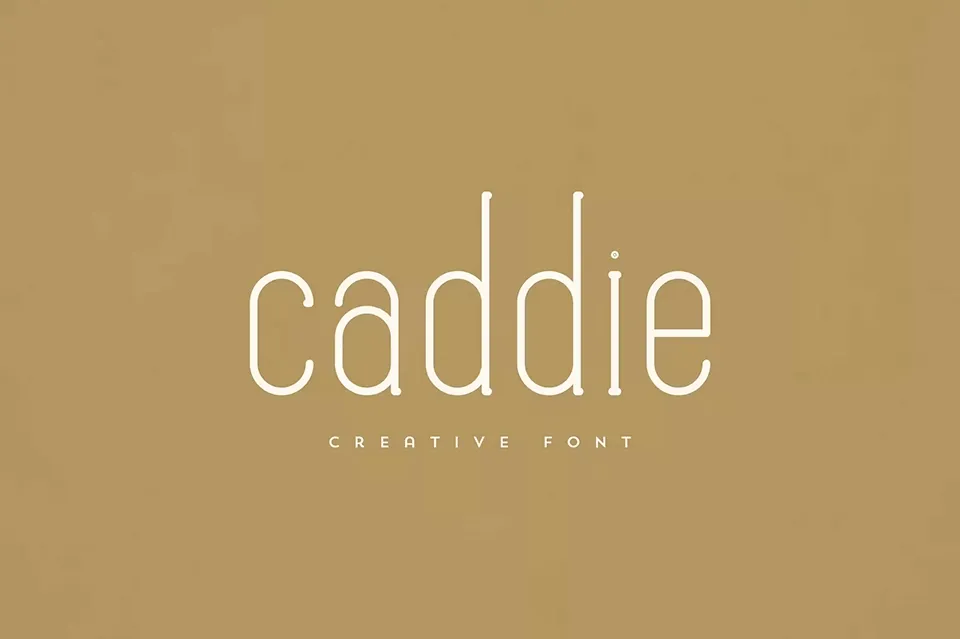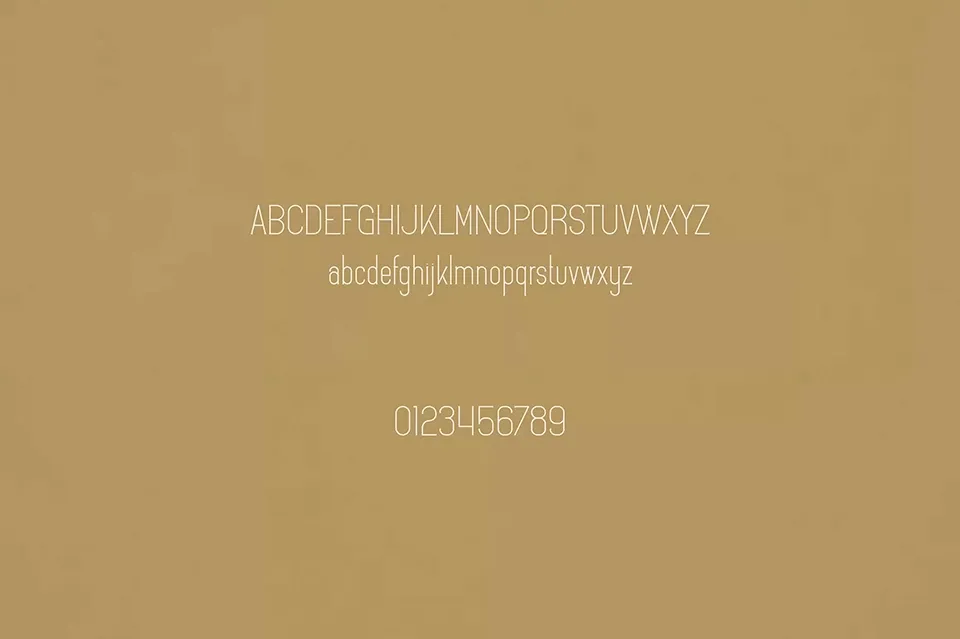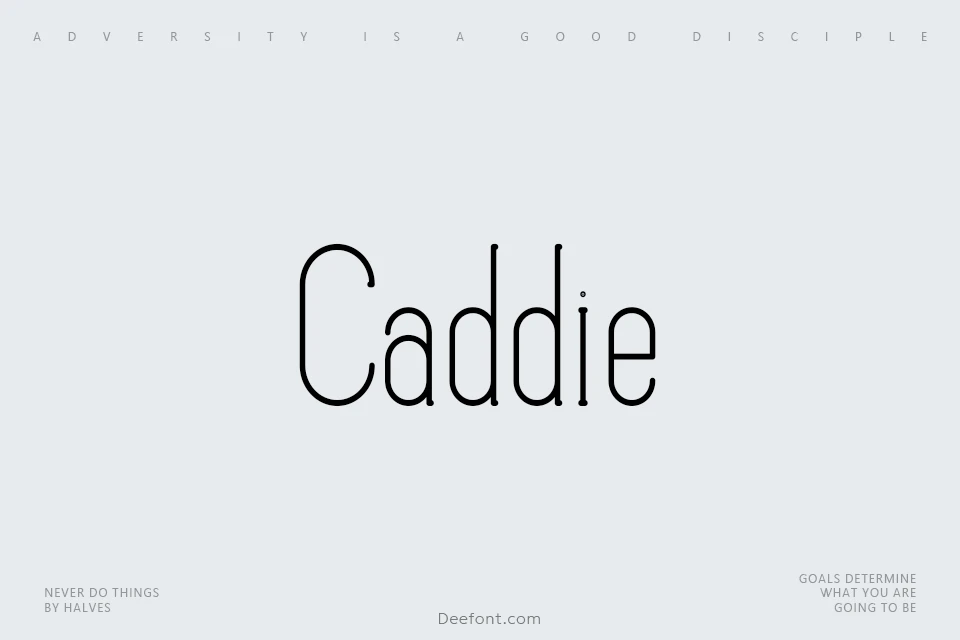
Caddie Font
Caddie Font is an elegant and versatile sans serif font that will make your typography truly unique! It will enchant every logo, branding, headline, or plain text. Perfect for branding projects, home-ware designs, product packaging, magazine headers, or simply as a stylish text overlay to any background image.
Designed by:VP Creative ShopWebsite